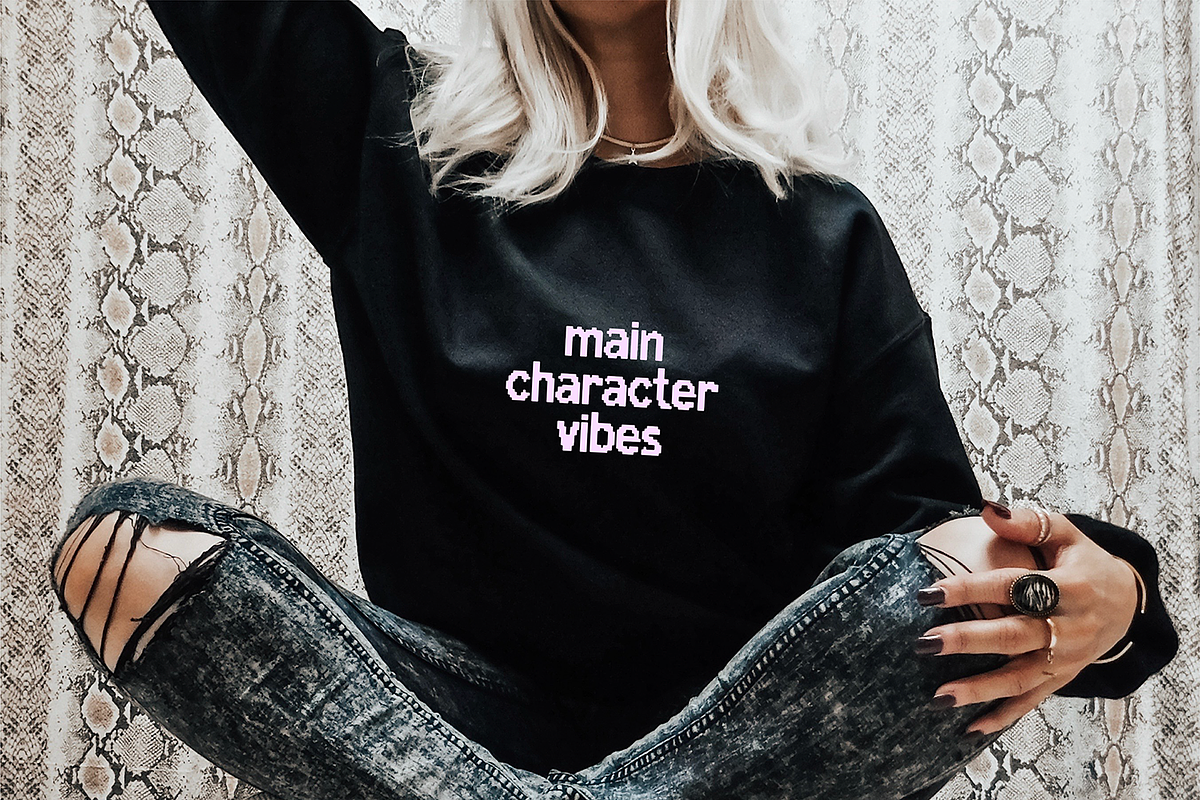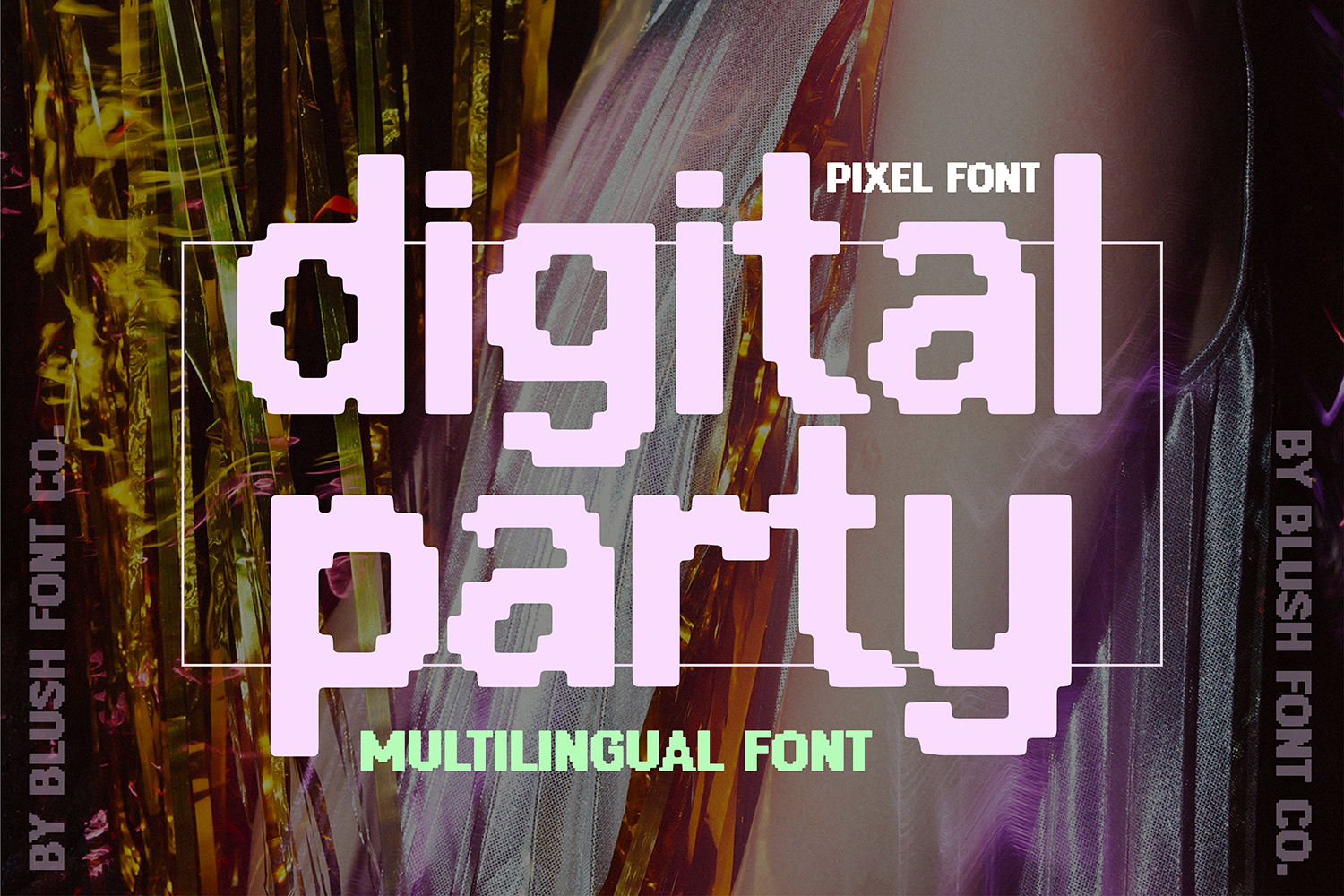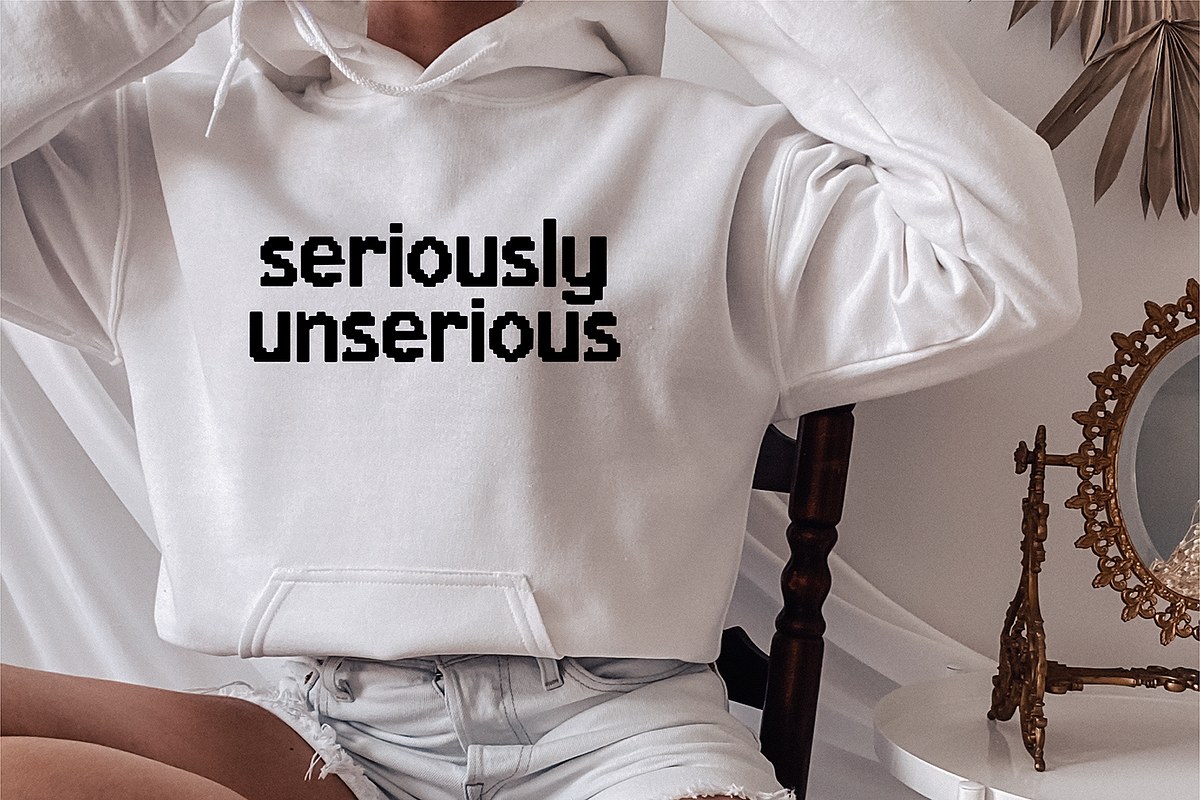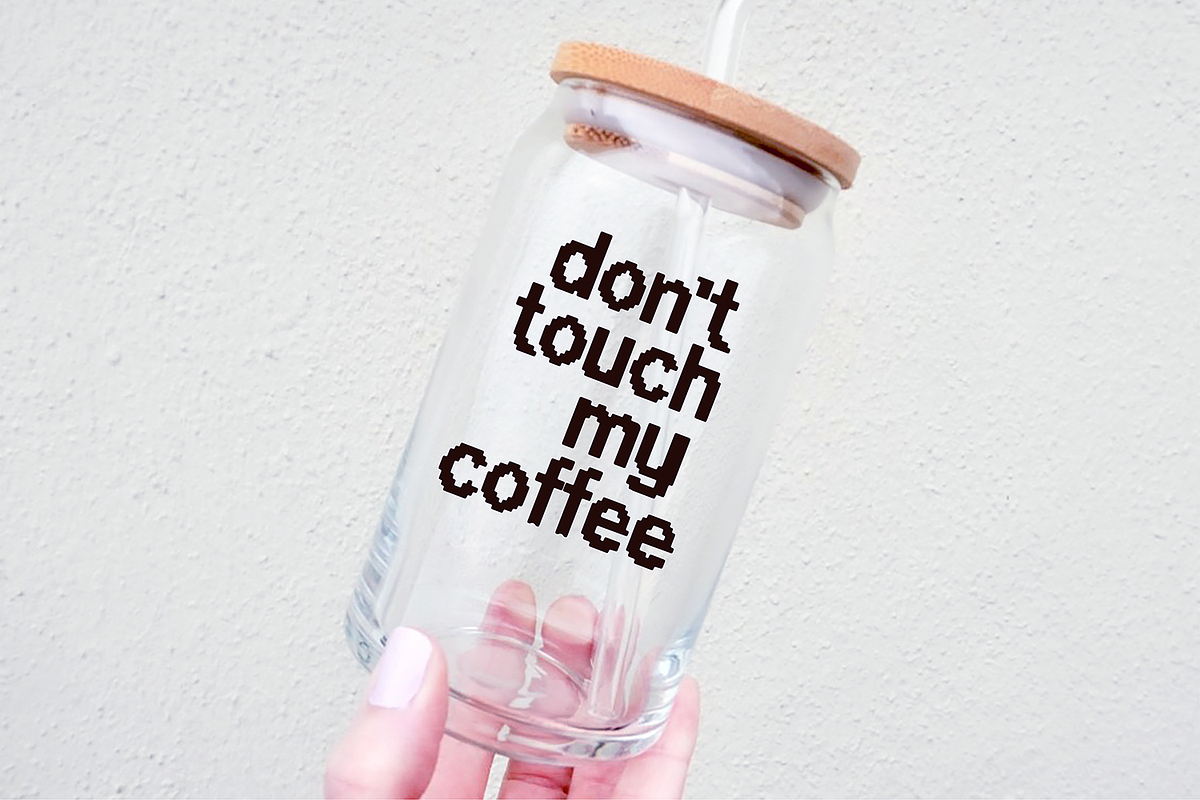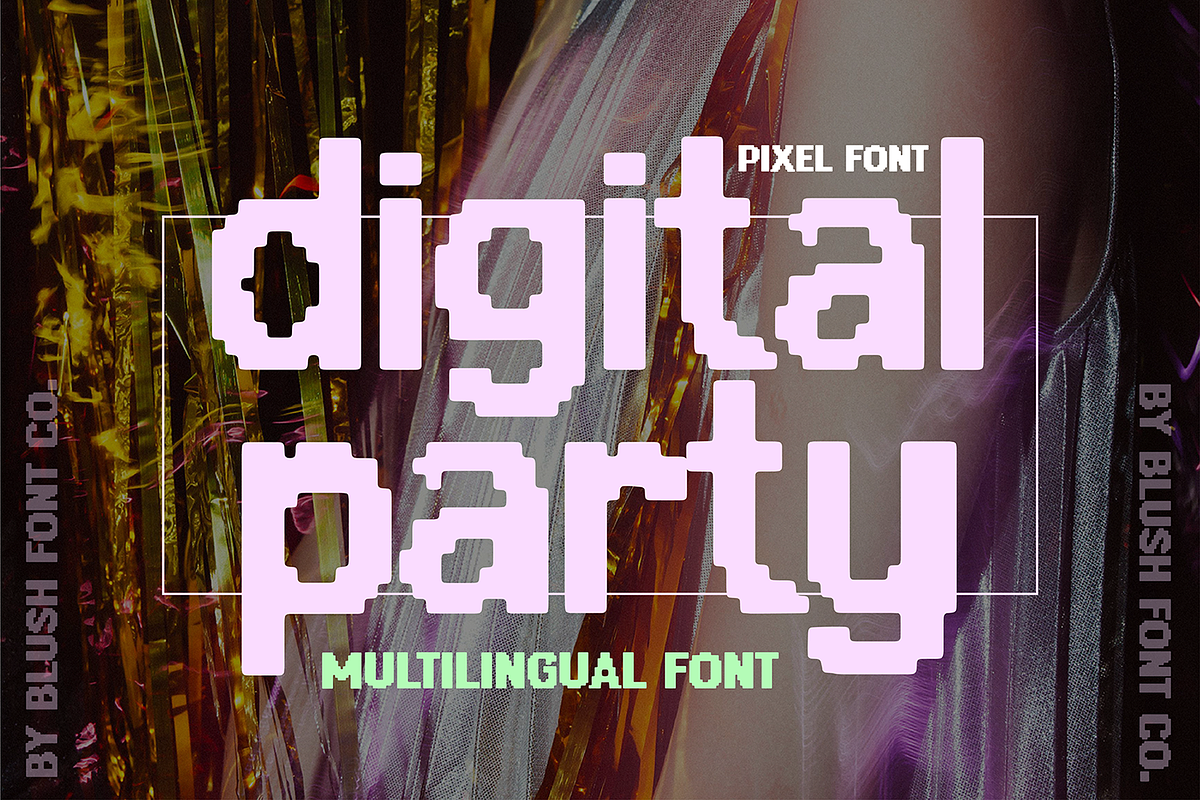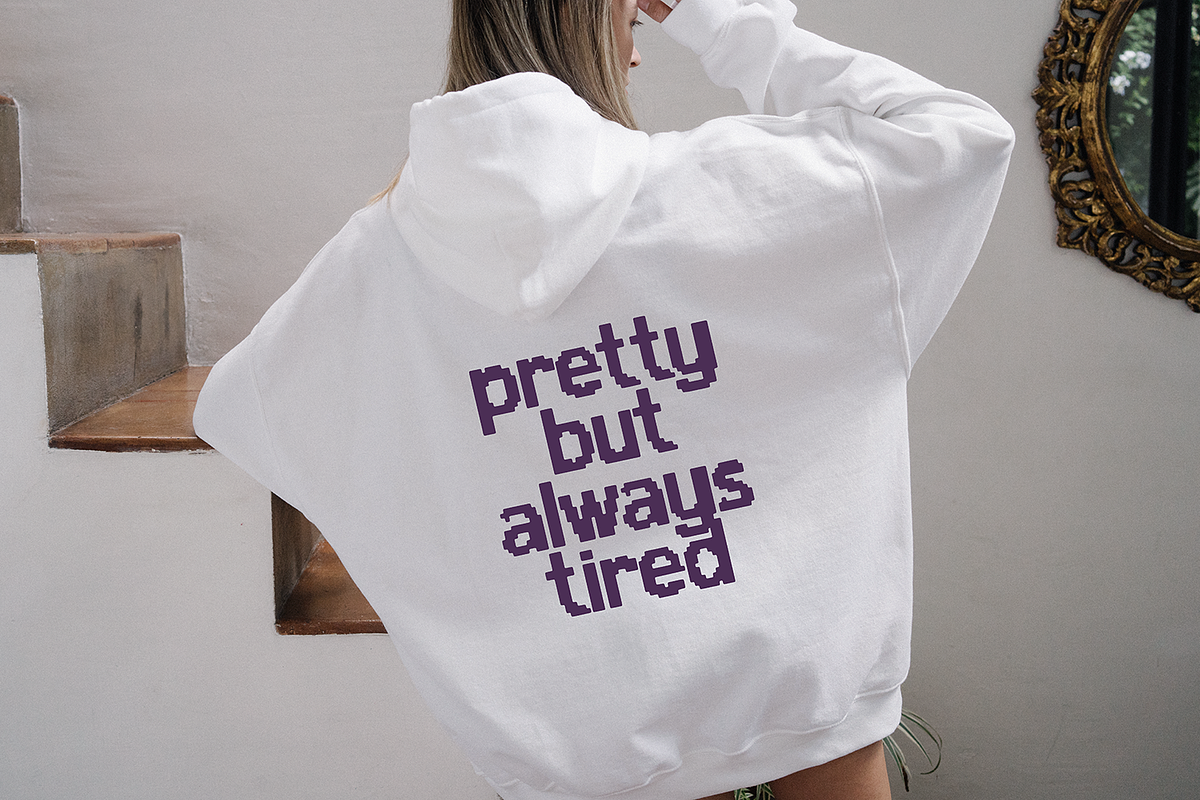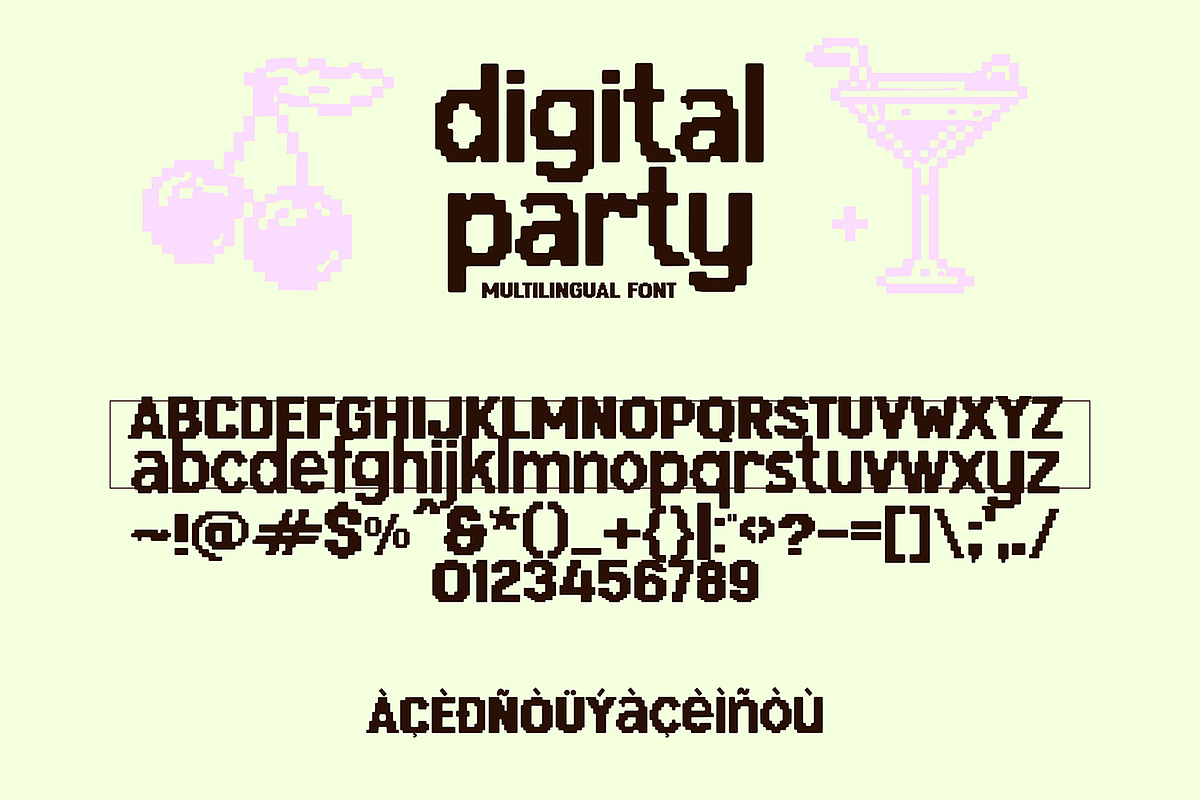
DIGITAL PARTY Y2K Sans Pixel Font
"Digital Party" a pixelated sans serif font.
Multilingual support.
This font is a unique pixelated display font that is perfect for your crafty projects. Use it for branding, invitations, and more! Upper and lowercase glyphs, numbers, punctuation marks, and intl characters.